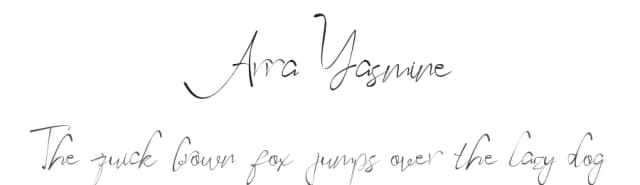
1 / 7About Eveline Cara Font
Eveline Cara, designed by Wras Studio, captures the spontaneity of handwriting with controlled letterforms that remain readable at any size. The flowing script carries genuine character without sacrificing legibility, making it work equally well on screen or in print.
This font shines for intimate projects that need personality. Wedding invitation suites, thank you cards, and boutique cosmetics packaging all benefit from its human touch. Custom t-shirt designs for small businesses look sharp with it, and product labels for handmade goods work beautifully too. DIY craft signage, rustic menu cards, and packaged gift sets take on a warm, intentional quality. The consistent weight and smooth connections between letters give the typeface polish without stiffness, letting stationery, gift tags, and social media graphics feel personal rather than mass-produced. Each stroke is considered and refined, with nothing rough or sketchy about its execution.
Handmade business owners, creatives doing their own design work, and anyone wanting genuine warmth in their projects find real value in Eveline Cara. Its handwritten character reads as thoughtful and intentional. The font supports multiple weights if needed, offering flexibility across different applications and sizes. Find it on Creative Fabrica, where you can download and use it across unlimited projects without restrictions.
Eveline Cara Font is a script font that shines as a display or heading face. Pair it with a clean sans-serif or serif font for body text β the contrast creates a clear hierarchy while the two styles stay balanced and easy to read.
Eveline Cara Font
by Wras Studio